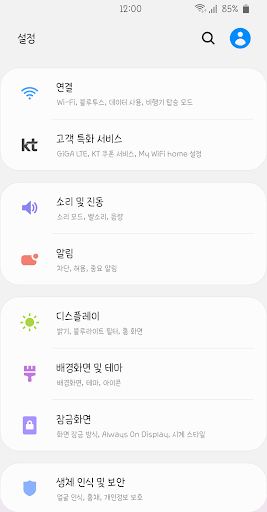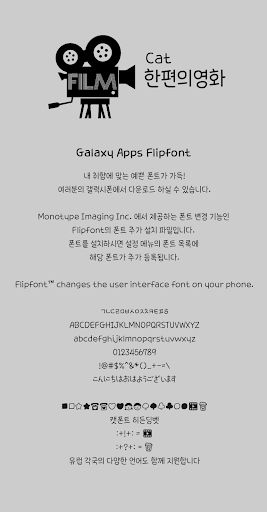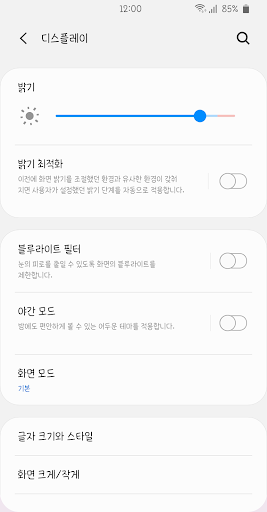
CatAmovie
CatFont that delivers happiness^^
This font based on the caption font from a memorable movie.
It's an elegant font.
When watch movies or dramas,
It's a design that's not uncomfortable when you look at e-books.
Including English, Japanese, and Vietnamese.
Germany, France, Russia, Italy, Portugal, Spain, Turkey, etc.
It also supports the languages of various European countries.
It supports a wide range of languages and special characters.
♥ Keyboard :! : and : ? : If you type in a row,
Cat Font's unique hidden dingbet is hidden.
♥ Including English, Japanese, and Vietnamese,
Germany, France, Russia, Italy, Portugal, Spain, Turkey, etc.
It also supports the languages of various European countries.
It supports a wide range of languages and special characters.
♥ A letter that gives you strength and cool energy,